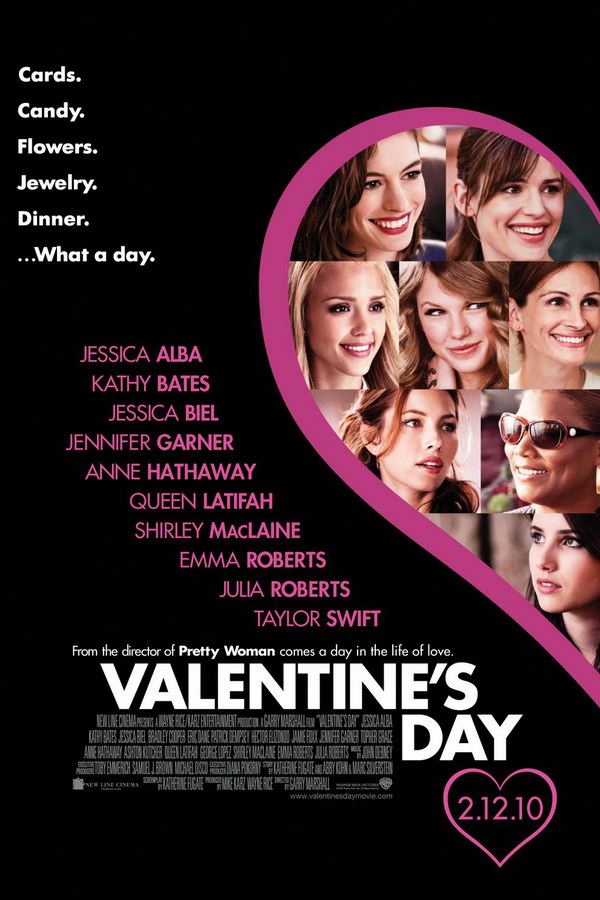
Valentine’s Day Font
ComedyValentine’s Day is a romantic comedy film that follows several interconnected couples and their experiences leading up to and on Valentine's Day. The star-studded cast includes Julia Roberts, Ashton Kutcher, Jessica Alba, and Jamie Foxx.
The movie title is displayed in Futura Bold, a commercial font designed by Paul Renner in 1932. You can learn more about this font here.